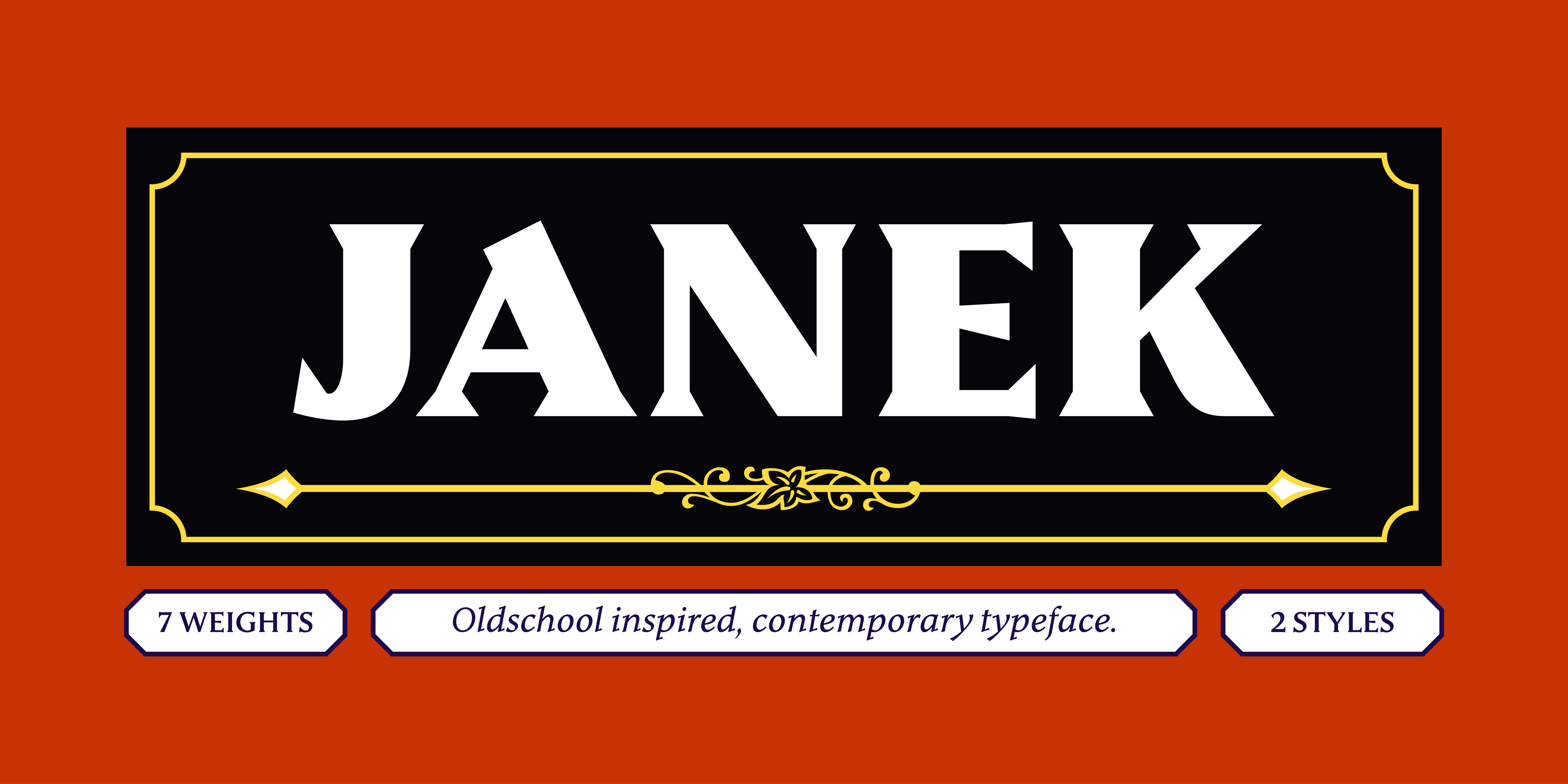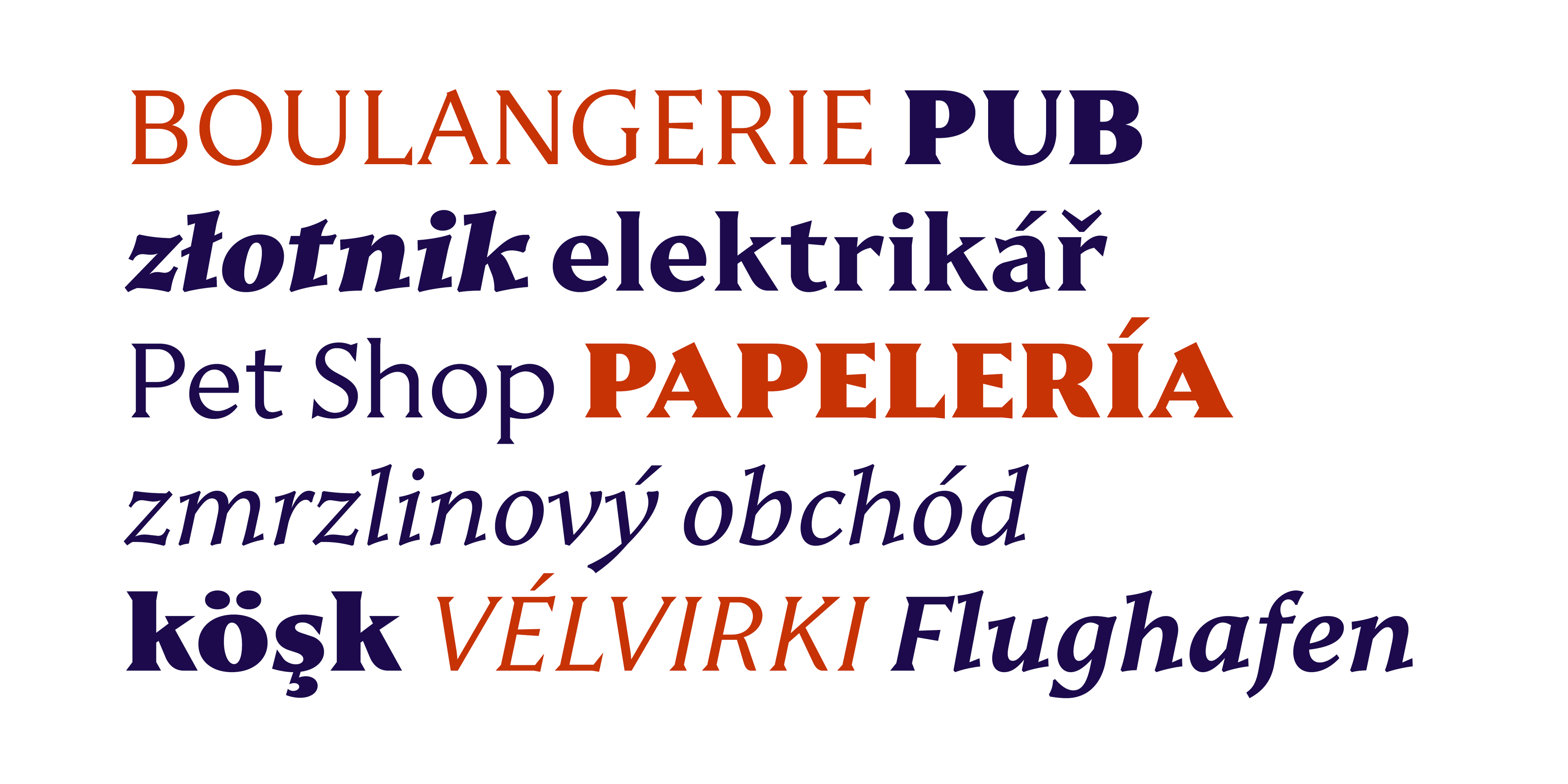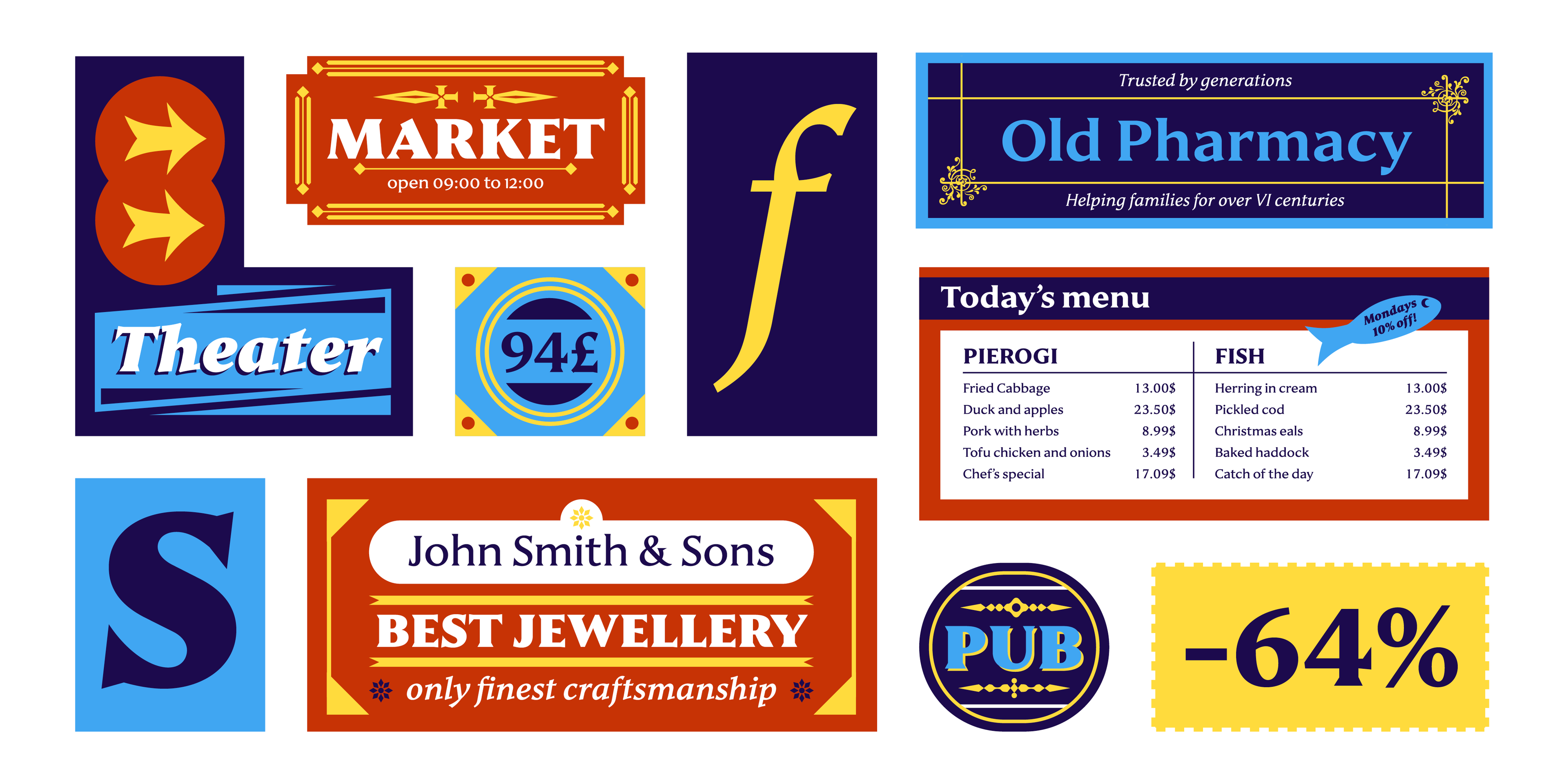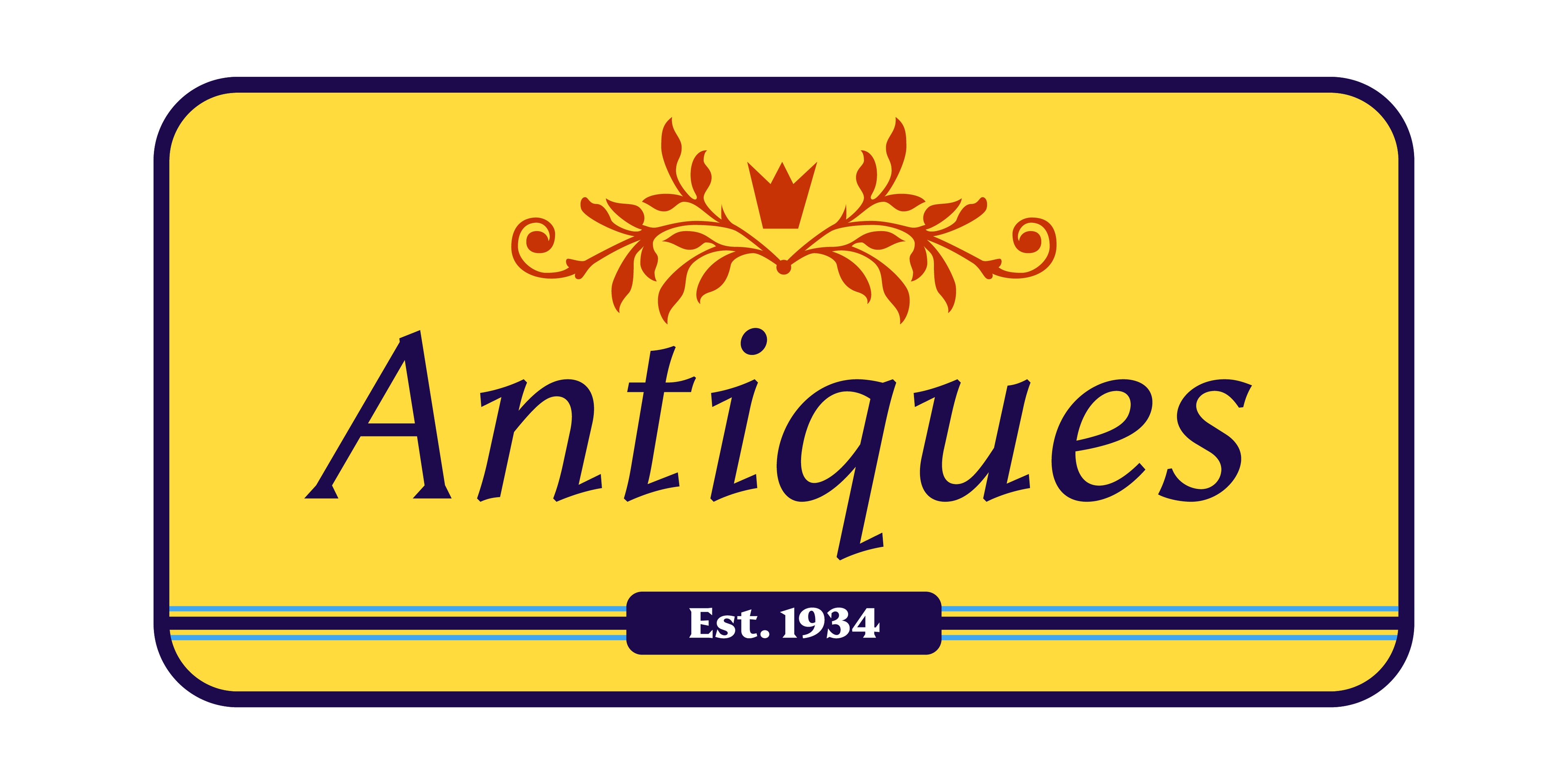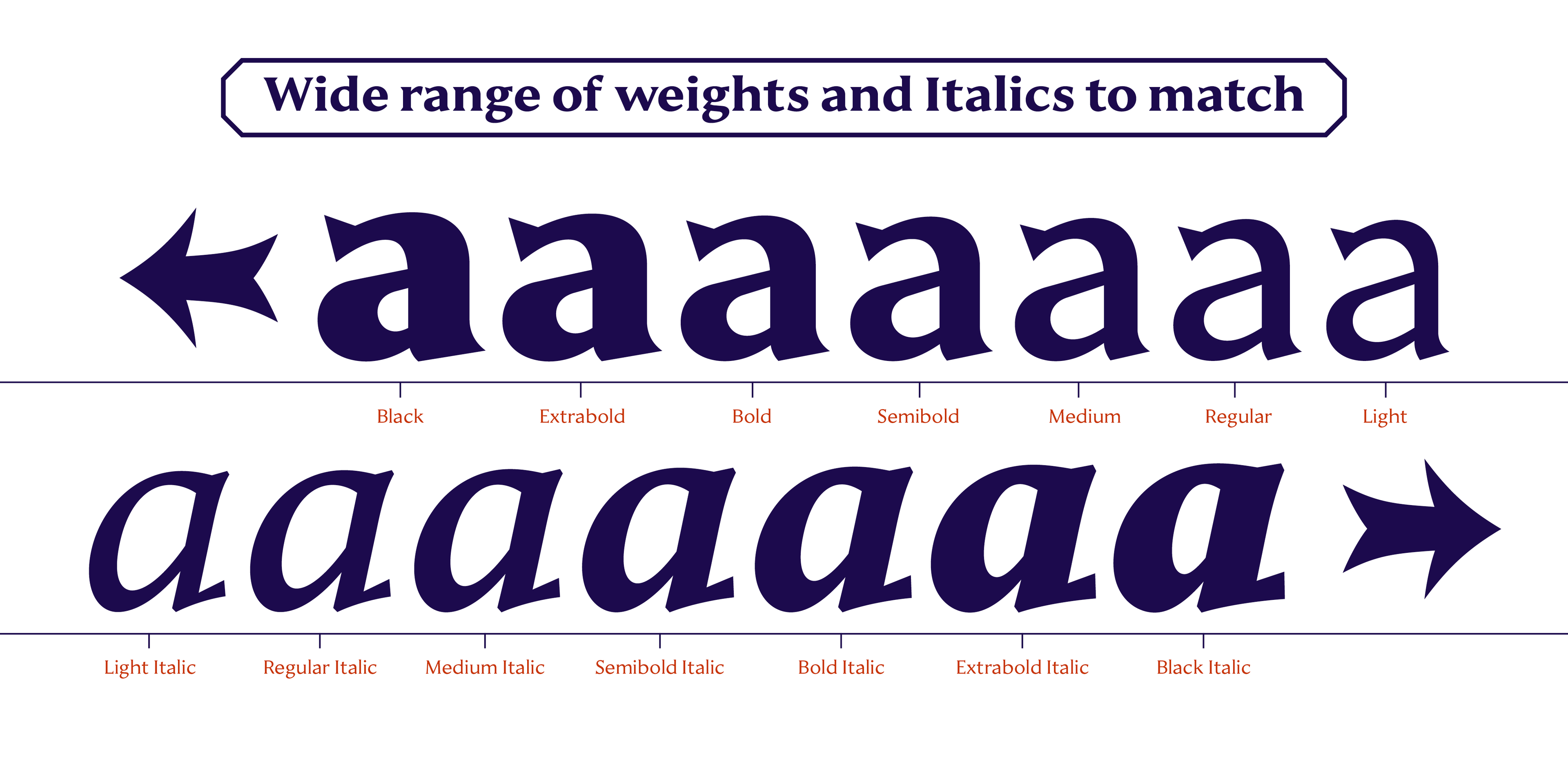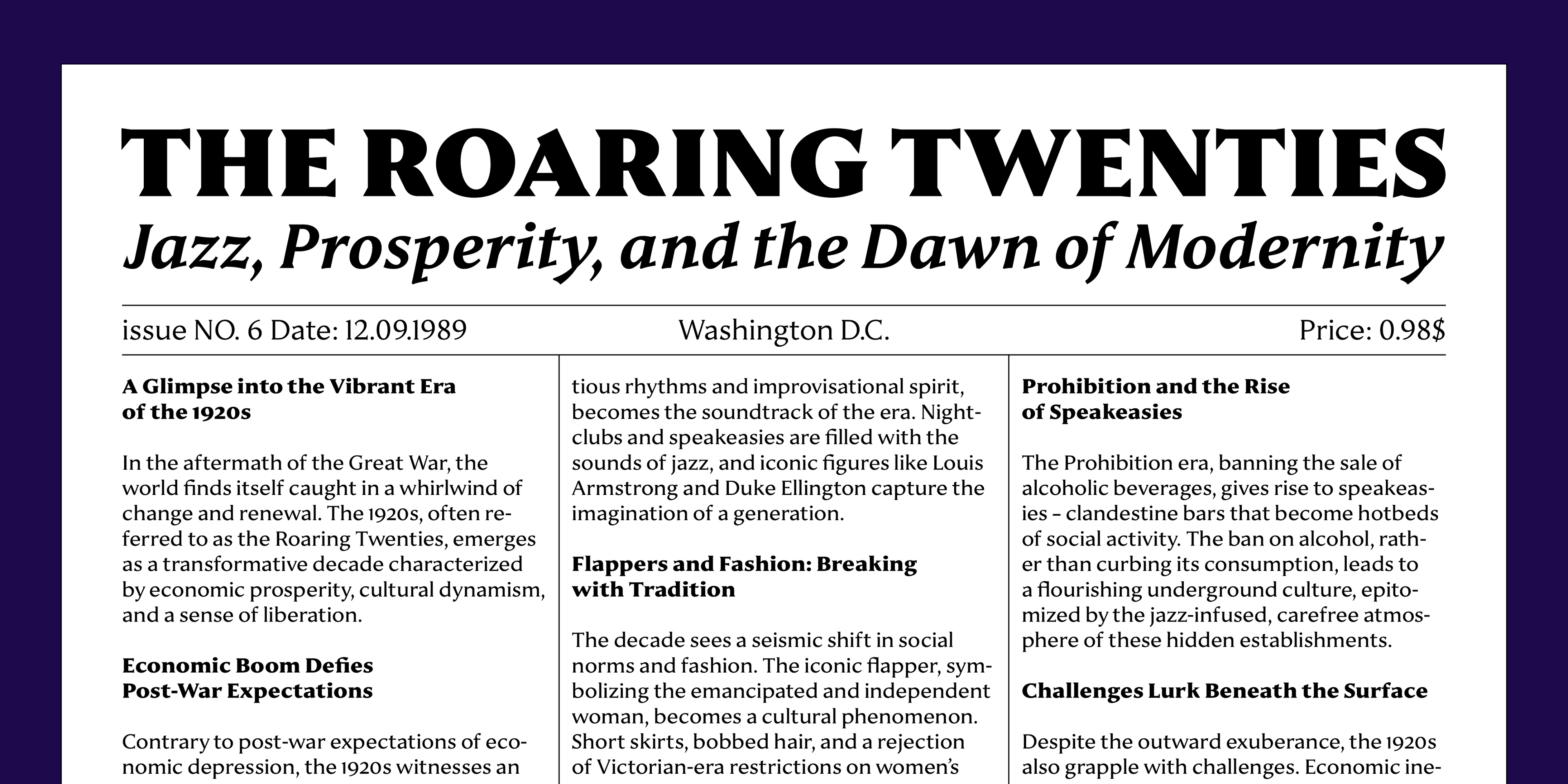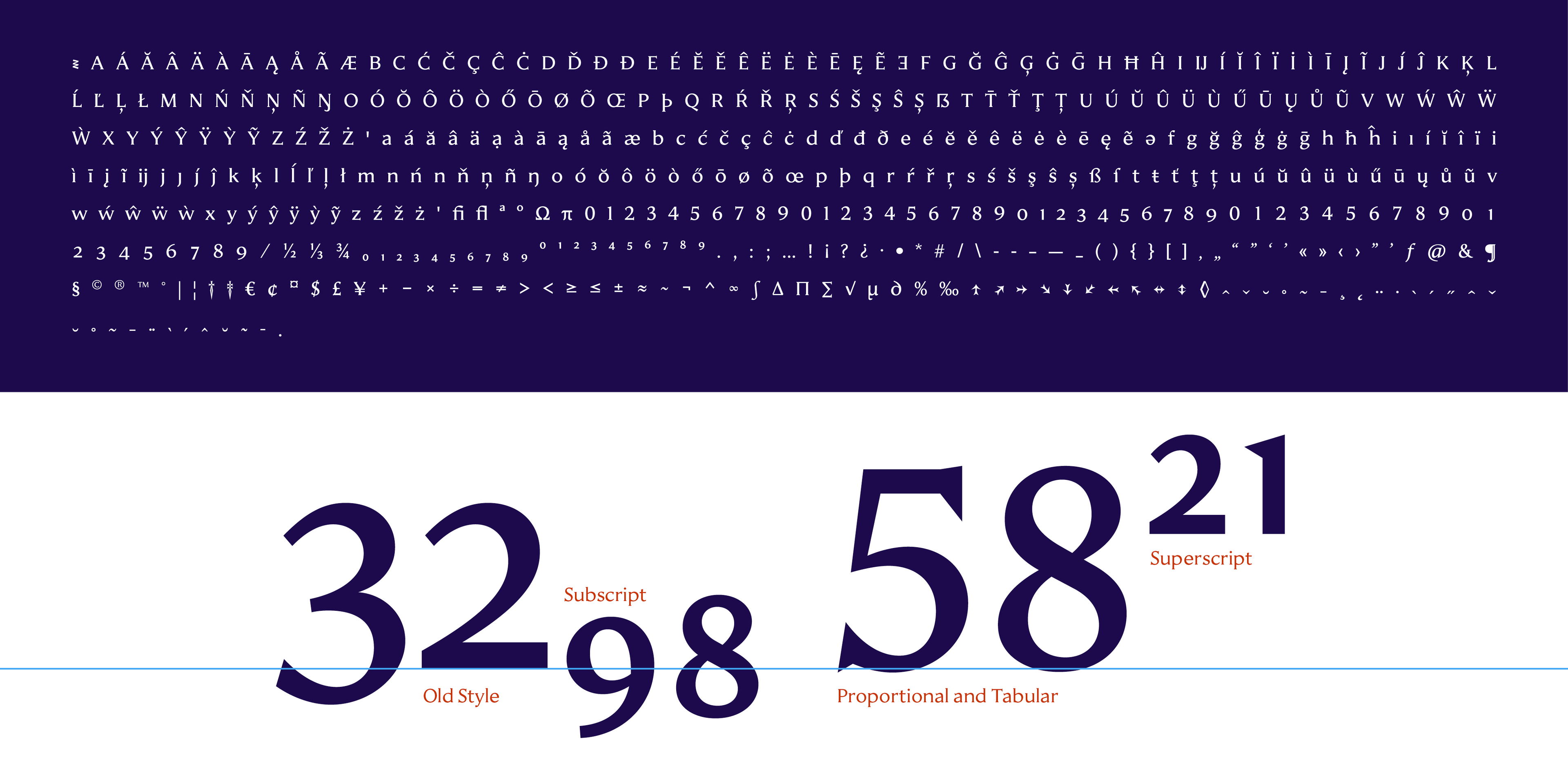
Janek is a semi-serif typeface inspired by old Polish signage. Rather than mimic a specific style, it synthesises various inspirations. It is named after the Author of a classic Polish manual that kickstarted this project, „Techniques of Lettering“ by Jan Wojeński. Large character sets and style selection allow for richness of expression. Pointy, upright, and slightly decorative italics bring a unique blend of aesthetics. It works well in rich text and as a striking display.
Janek consists of seven italic and seven upright styles ranging from Light to Black. With extensive language support and a wide selection of features, it is suited for a range of Latin use cases. Janek is a contemporary throwback to the past.
Janek started as a Masters project at the Academy of Fine Arts in Gdańsk. Since then, it evolved. It ended up being a loose inspiration with the period and Polish outdoor advertising tradition rather than a direct revival. Its influences grew past only Jan Wojeński, however, the name remained. It was redesigned twice before gaining its final shape. Once as a part of an internship at Nova Type Foundry and the second time in 2023, when it was expanded with an Italic style.